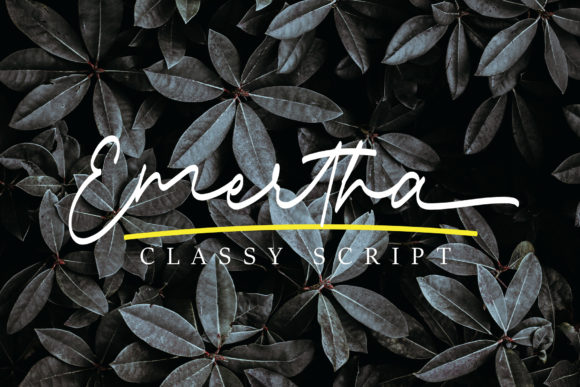
Introducing Emertha Script Font: A Contemporary Elegance
Are you a designer or crafter looking for a font that exudes elegance and sophistication? Look no further than Emertha Script Font. This beautiful font is a light and fun handwritten script with a cool twist, making it perfect for a variety of design projects. In this article, we’ll dive into the features and benefits of Emertha Script Font and explore how you can use it to take your designs to the next level.
What is Emertha Script Font?
Emertha Script Font is a modern script font that combines the elegance of traditional calligraphy with a fresh and playful twist. Its light and fun design makes it perfect for use in a variety of design projects, from wedding invitations and stationery to branding and advertising materials. The font features beautiful, flowing lines and a unique character set that is sure to add a touch of sophistication to any design.
Key Features of Emertha Script Font
- Light and Fun Design: Emertha Script Font has a light and airy feel that makes it perfect for use in designs where you want to convey a sense of elegance and sophistication.
- Contemporary Elegance: The font’s modern design and unique character set give it a contemporary elegance that is sure to make your designs stand out.
- Handwritten Script: Emertha Script Font is a handwritten script font, which gives it a personal and organic feel that is perfect for use in a variety of design projects.
- Cool Twist: The font’s cool twist sets it apart from other script fonts and makes it perfect for use in designs where you want to add a touch of personality and whimsy.
Benefits of Using Emertha Script Font
There are many benefits to using Emertha Script Font in your designs. Here are just a few:
- Instant Elegance: Emertha Script Font adds an instant touch of elegance to any design, making it perfect for use in high-end branding and advertising materials.
- Versatility: The font’s light and fun design makes it versatile and perfect for use in a variety of design projects, from wedding invitations to business cards.
- Unique Character Set: Emertha Script Font features a unique character set that is sure to make your designs stand out from the crowd.
- Easy to Read: The font is easy to read, even at small sizes, making it perfect for use in designs where you need to convey a lot of information.
How to Use Emertha Script Font
Emertha Script Font is easy to use and can be incorporated into a variety of design projects. Here are a few ideas to get you started:
- Wedding Invitations: Use Emertha Script Font to create beautiful and elegant wedding invitations that set the tone for your special day.
- Branding and Advertising: The font’s modern design and unique character set make it perfect for use in branding and advertising materials, such as logos, business cards, and brochures.
- Stationery: Use Emertha Script Font to create beautiful and elegant stationery, such as letterhead and notecards.
- Digital Designs: The font is also perfect for use in digital designs, such as social media graphics and website headers.
| Font Name | Emertha Script Font |
| Author | Eifets |
Emertha Script Font is a beautiful and elegant font that is perfect for designers and crafters looking to add a touch of sophistication to their designs. Its light and fun design, contemporary elegance, and unique character set make it versatile and perfect for use in a variety of design projects. Whether you’re creating wedding invitations, branding materials, or digital designs, Emertha Script Font is sure to inspire and take your designs to the next level.